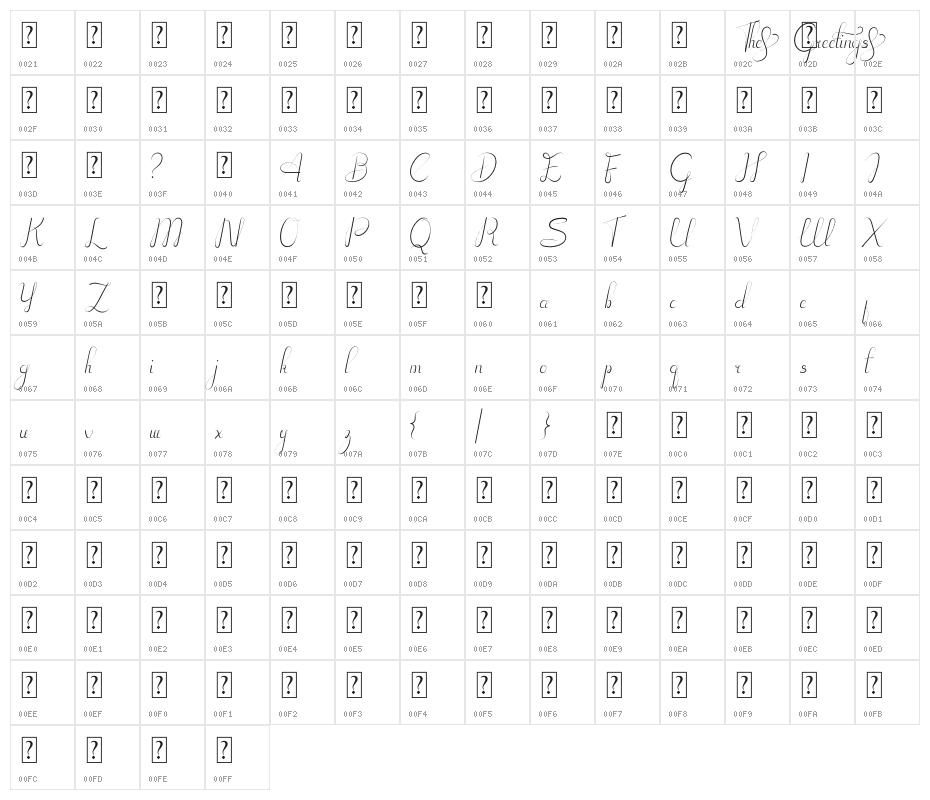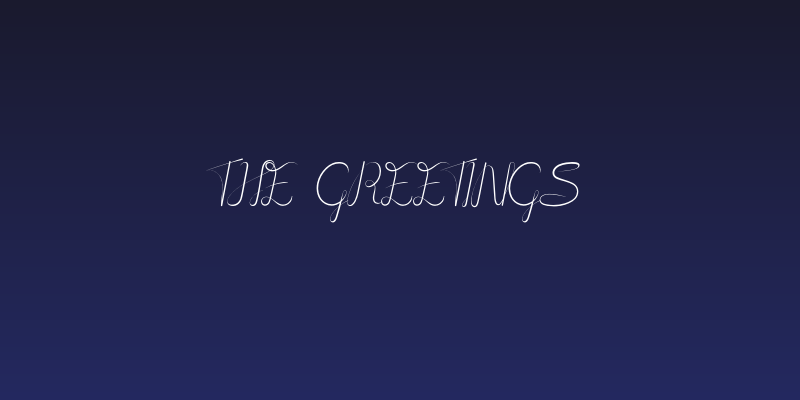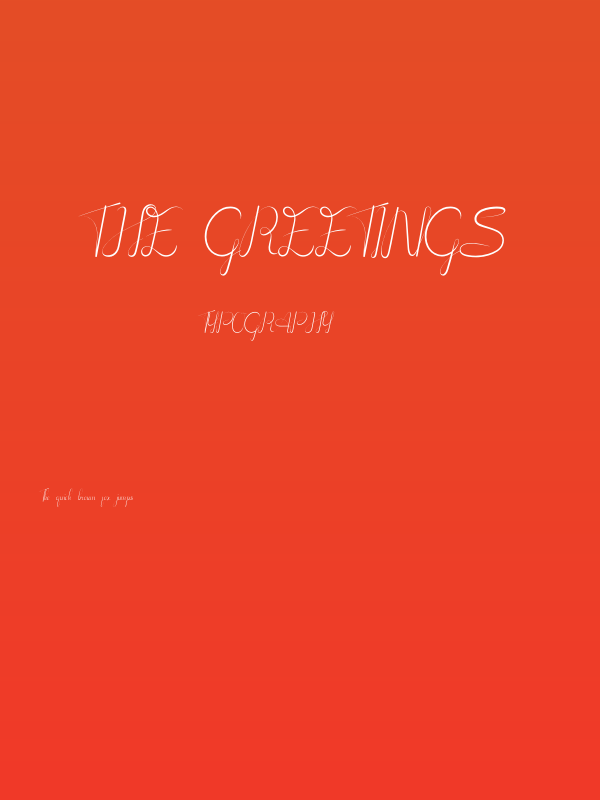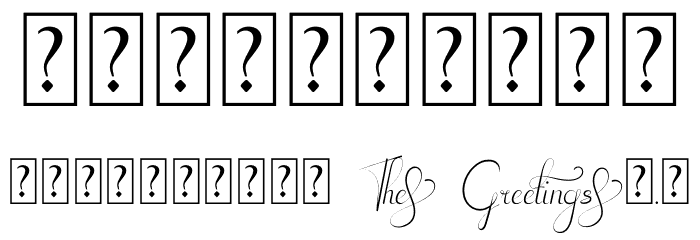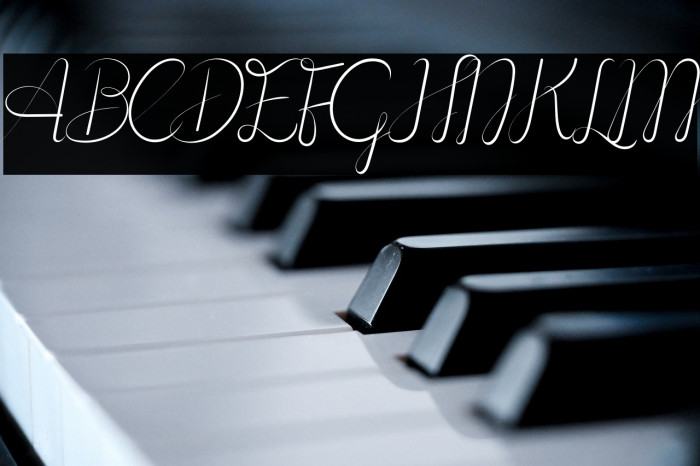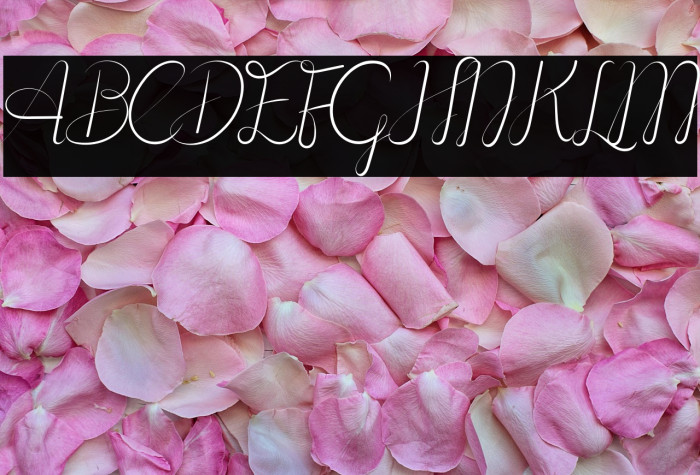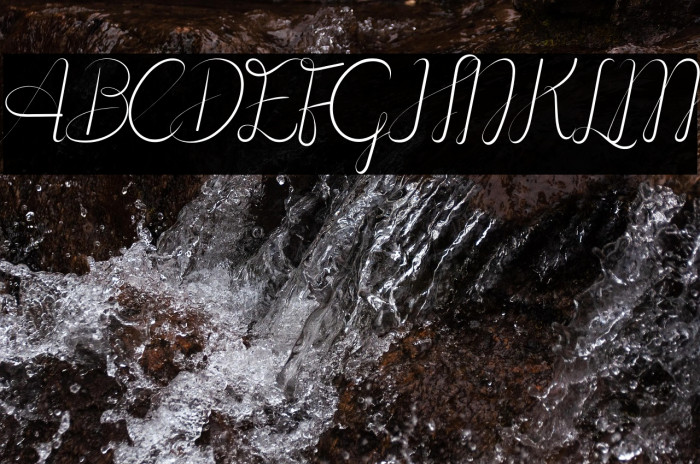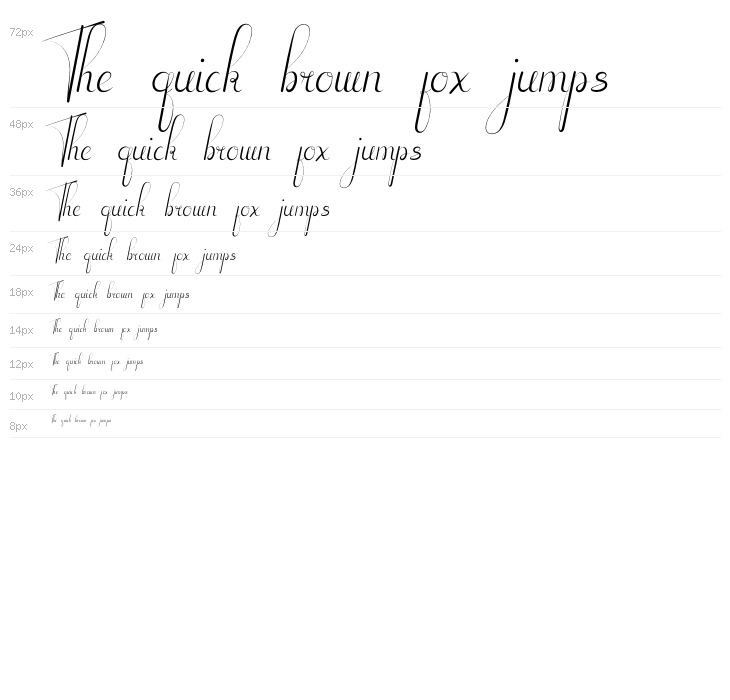
The Greetings Font
The Greetings Description
This elegant script font features a flowing, cursive style with high contrast between thick and thin strokes. The uppercase letters are particularly ornate, with sweeping curves and loops that give a sense of movement and grace. The lowercase letters maintain a consistent style, complementing the uppercase with their own subtle flourishes. The font's overall appearance is sophisticated and decorative, making it suitable for formal invitations, greeting cards, and other special occasions. The spacing between characters is normal, ensuring readability while maintaining its decorative appeal.
| Use Case | Headlines, Invitations, Greeting Cards |
| Proposed Projects | Ideal for wedding invitations, greeting cards, elegant branding, and decorative headings. |